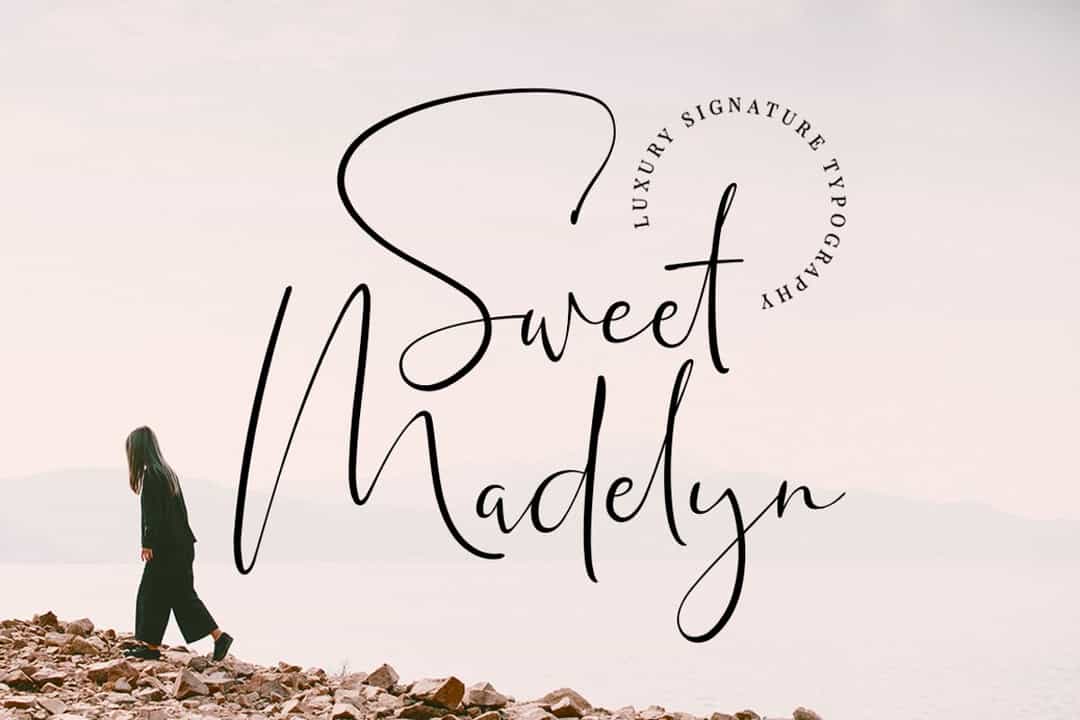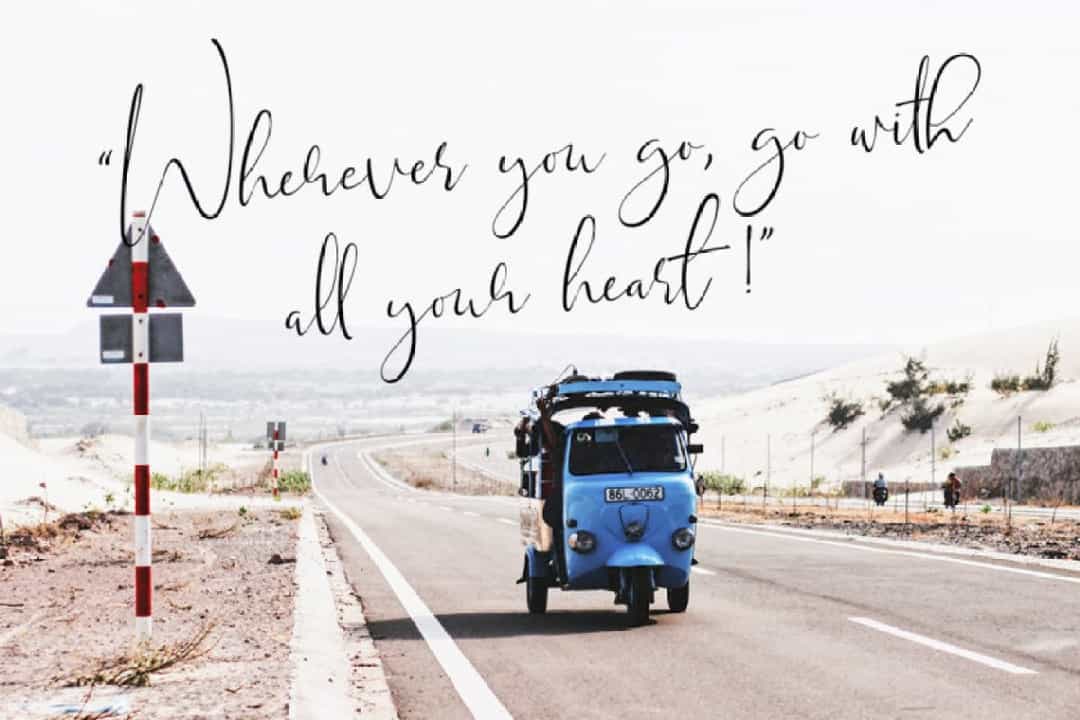
Sweet Madelyn is a handwritten script typeface that has a Gel pen and natural touch to it. This font is ideal for your next creativity project for example watermarks on photograph albums, quote, album cover logo, business card and so on. It is also good for any design works also for any projects that you may have.